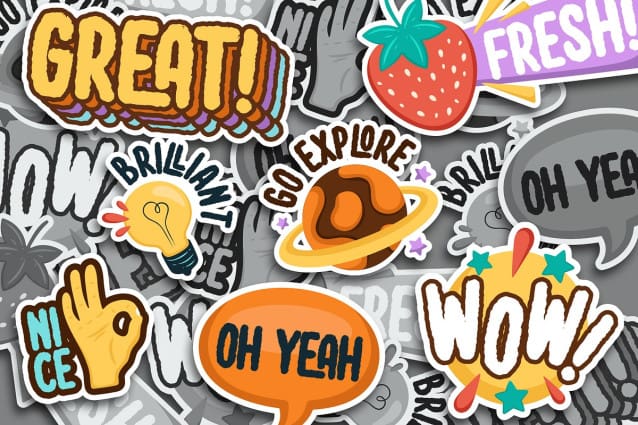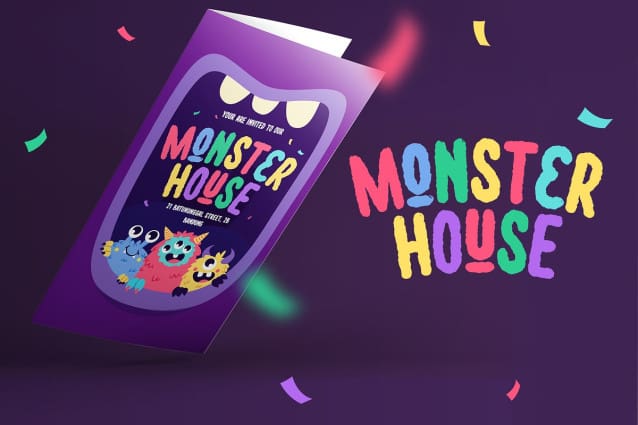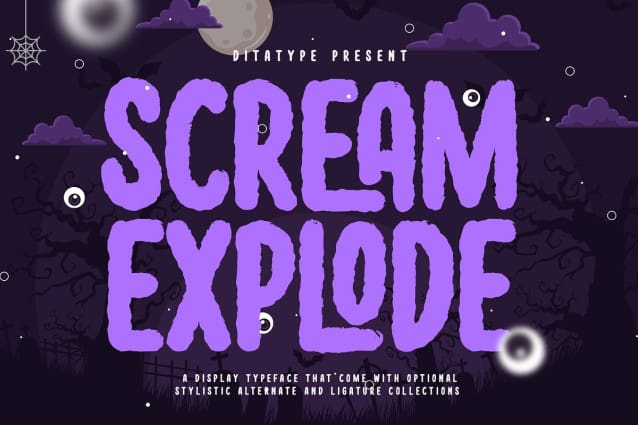
Scream Explode Font
Scream Explode Font:This font is designed with bold characters and a unique style that helps you convey your message quickly. This thick, uppercase font creates a bold, striking display. Furthermore, the irregular outlines on our display font will bring more creative touches to create a unique, attractive display. Additionally, you can apply this font to large text sizes for easy reading.